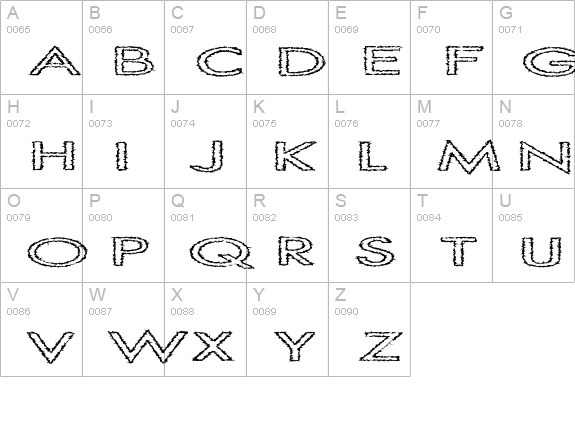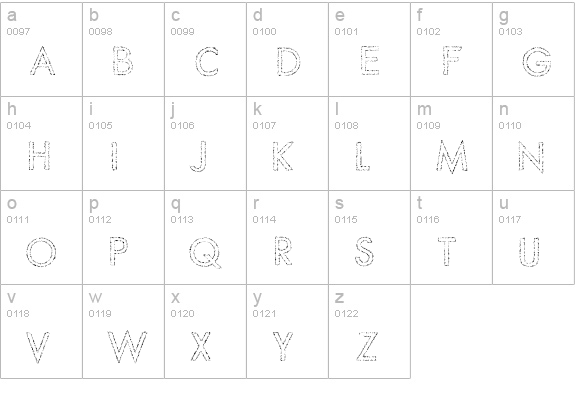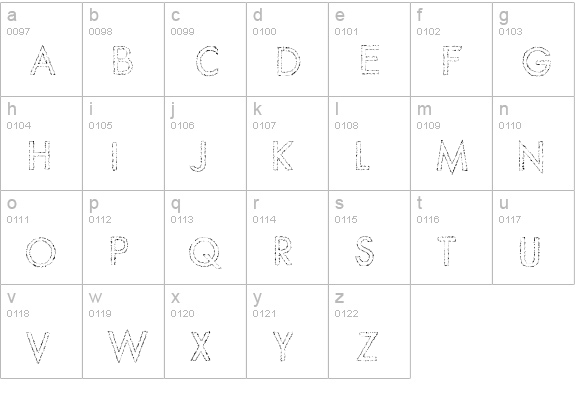
Slur Crumb Font Details
Slur Crumb font is a captivating and innovative typeface that pushes the boundaries of traditional typography. With its unique design and intricate details, this font is sure to catch the eye and leave a lasting impression. Featuring a delightful combination of graceful curves and sharp edges, Slur Crumb font exudes a sense of playfulness and sophistication. The letters are beautifully crafted, with each stroke carefully considered to create a harmonious balance between elegance and quirkiness. This font is perfect for a wide range of projects, from eye-catching logos to engaging headlines. Whether you're designing a poster, creating a website, or crafting a branding identity, Slur Crumb font will add a touch of creativity and personality to your work. The best part? Slur Crumb font is available for free download at FontsMarket.com. You can easily access this stunning font and incorporate it into your design projects without any cost. With its freely available nature, Slur Crumb font becomes a valuable asset for designers, students, and anyone looking to enhance their creative endeavors. So why wait? Unlock the potential of your designs with Slur Crumb font. Download it for free today at FontsMarket.com and let your imagination run wild.